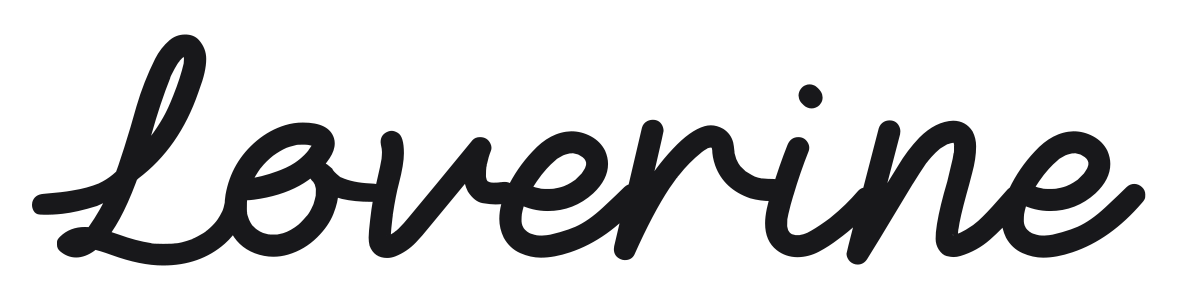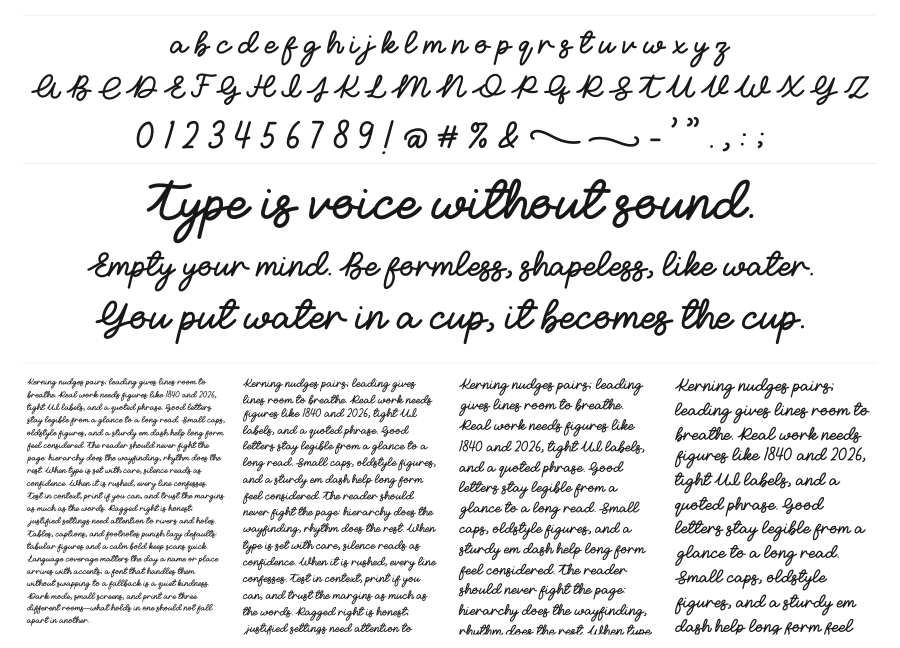
Loverine
Loverine is a smooth connected casual script with a clean, marker-pen quality and bouncy rhythm. The near-monoweight strokes and rounded terminals keep it feeling modern rather than retro, landing somewhere between handwritten warmth and polished branding. It reads confidently at large sizes and carries a natural friendliness that works across lifestyle, beauty, and food packaging.